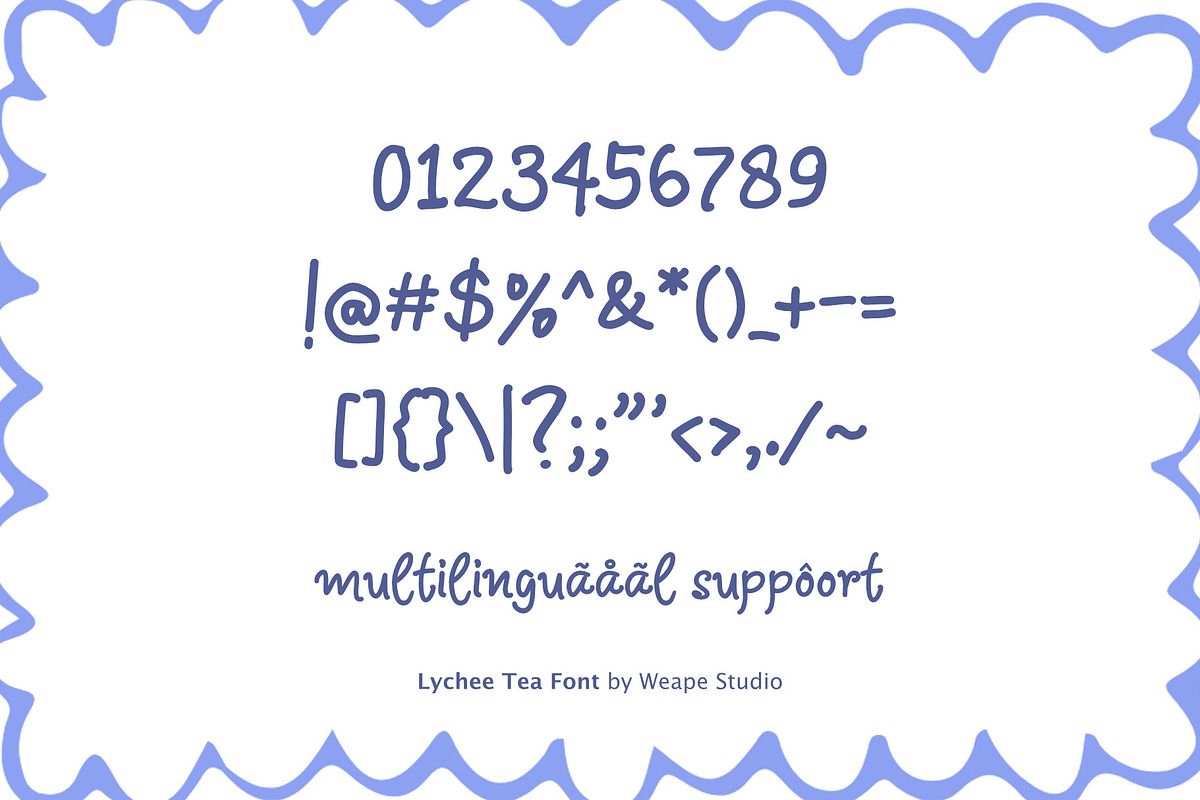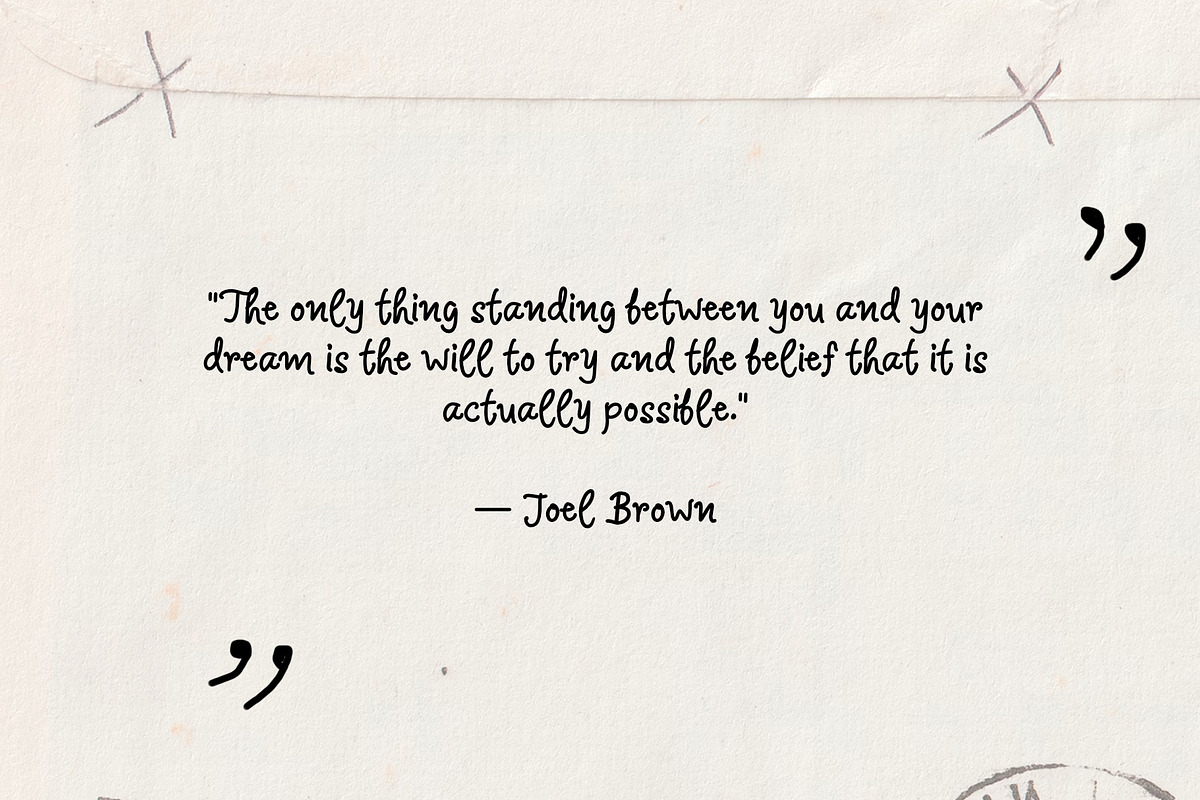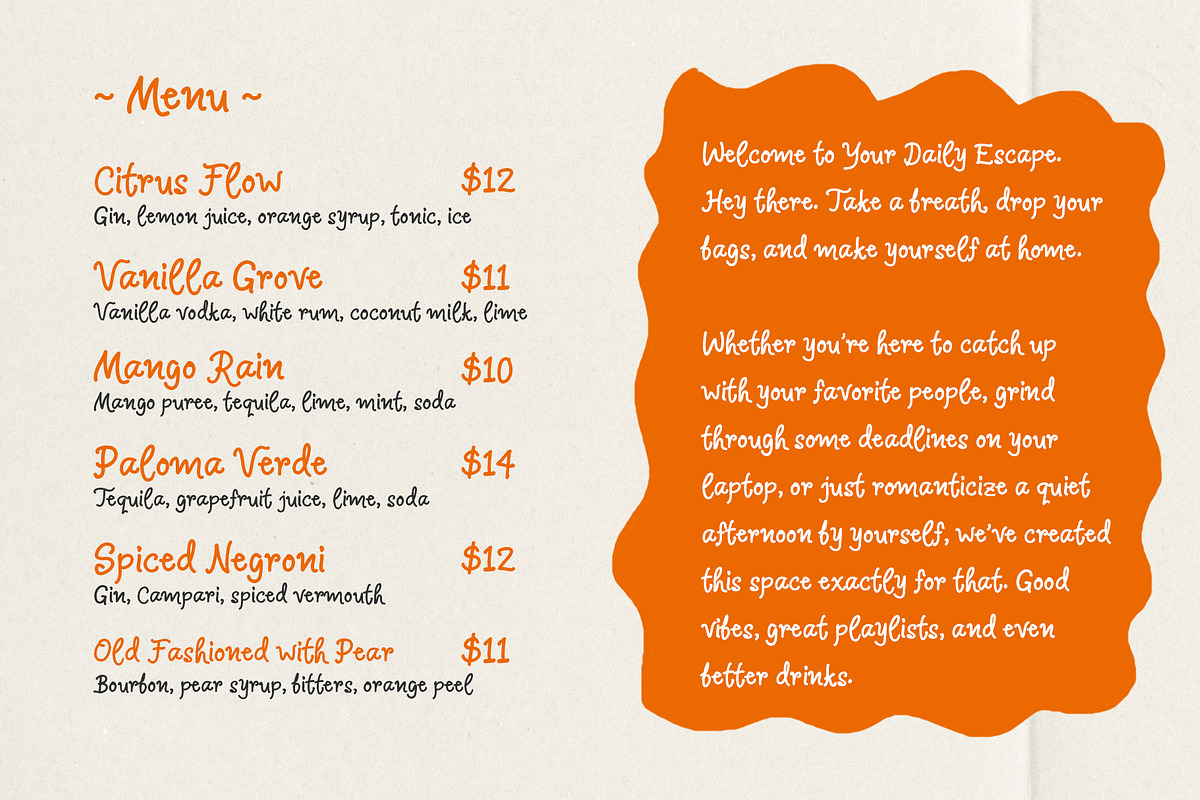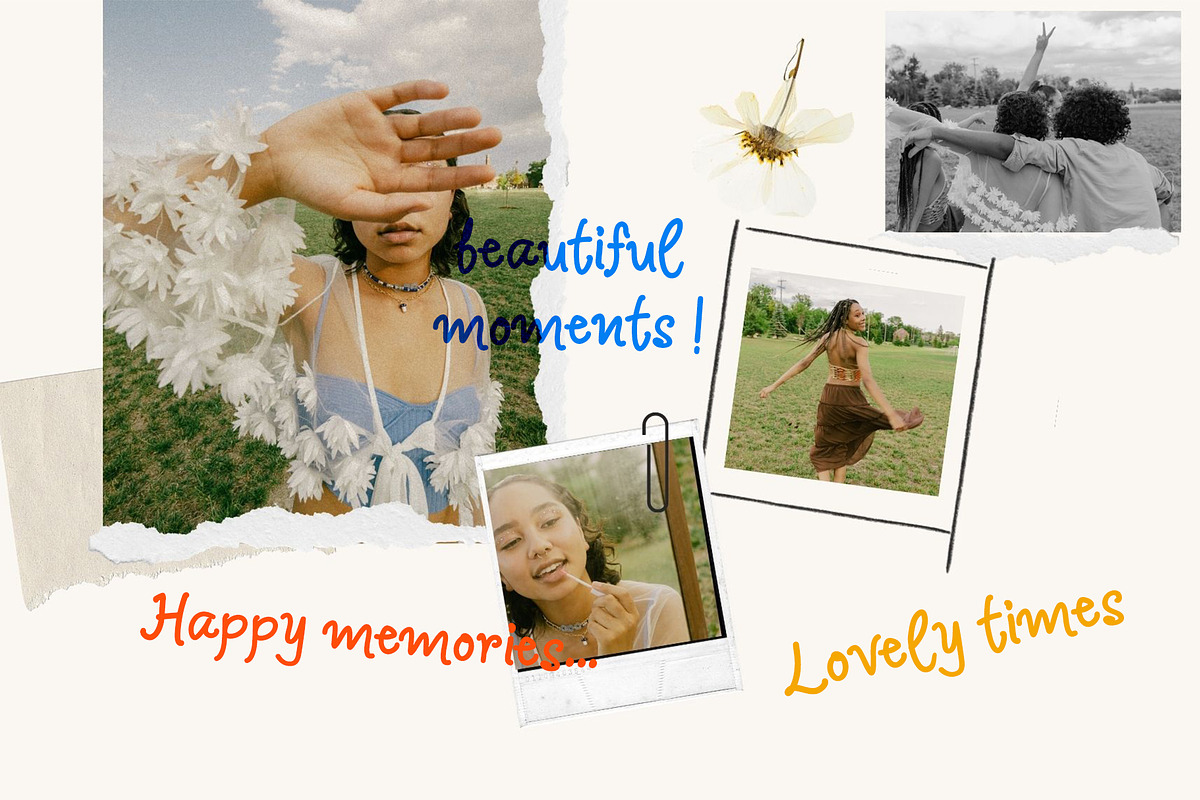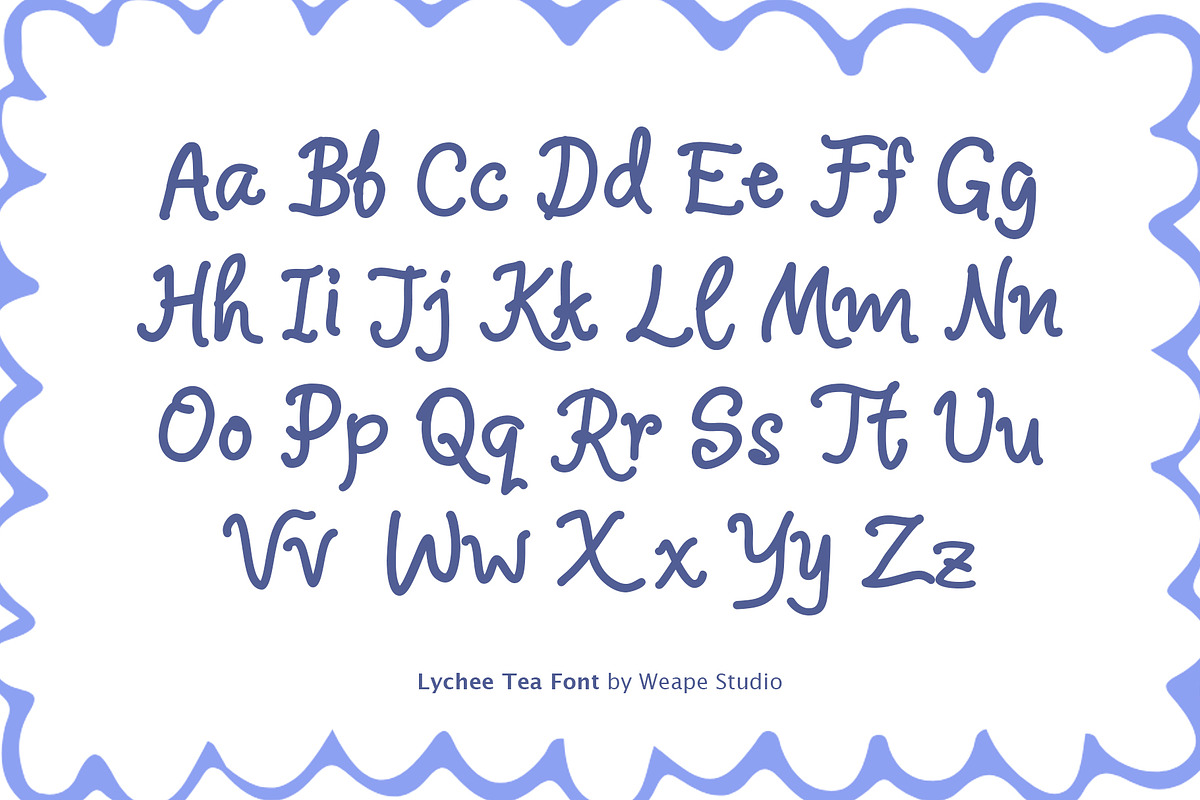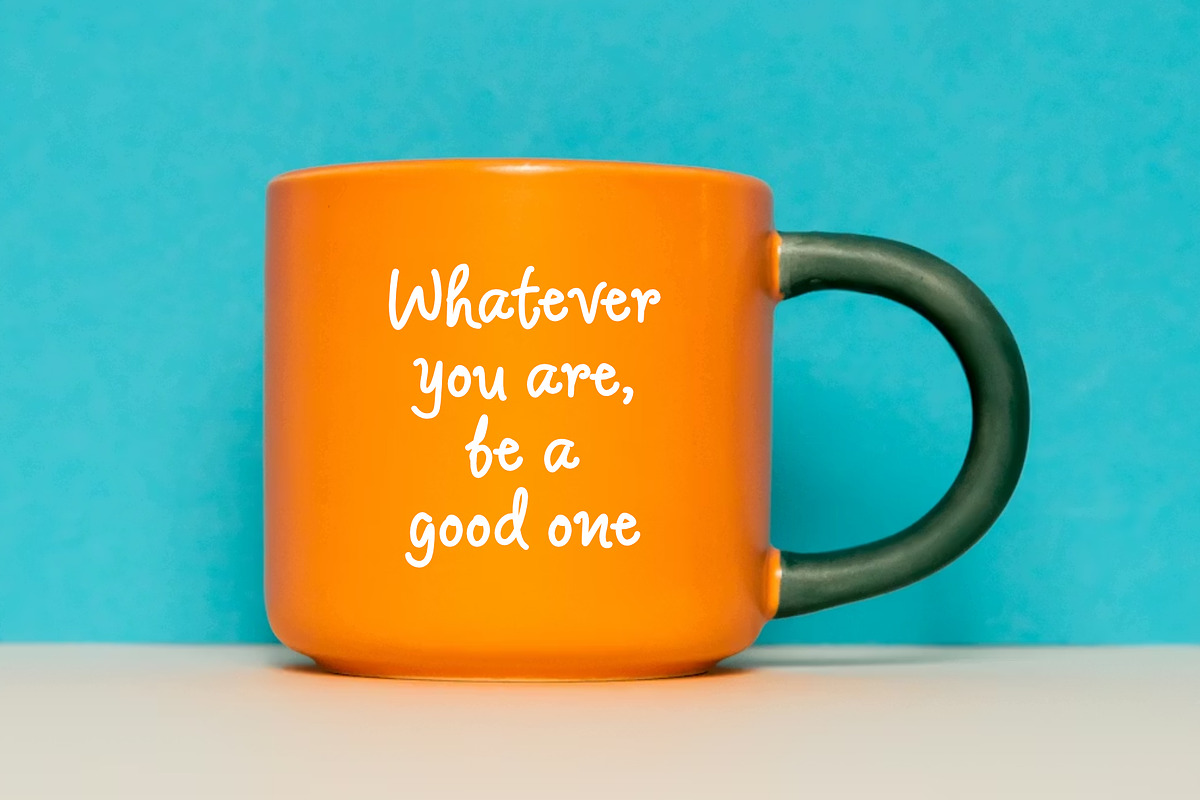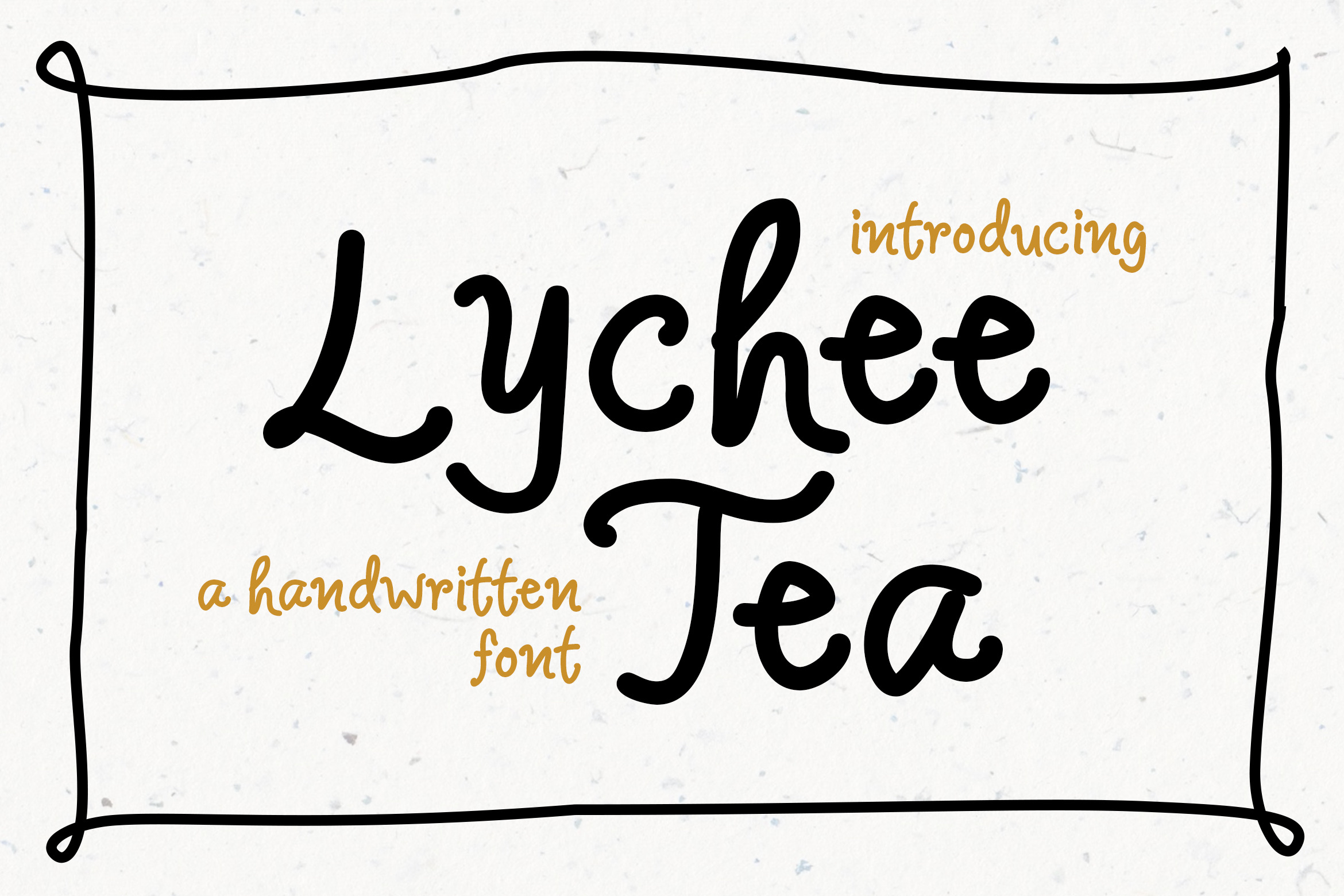
Lychee Tea - Handwritten Font
Pour yourself a cup of creativity with Lychee Tea.
Meet Lychee Tea, an expressive handwritten font designed to capture the raw, unfiltered beauty of natural handwriting. With its bouncy baseline, smooth curves, and honest strokes, this font feels like a personal note written by a good friend. It doesn't try to be perfectly geometric; instead, it embraces a free-flowing rhythm that adds an instant human touch to any digital canvas.
Whether you are designing heartfelt quote posters, vibrant social media graphics, or cozy lifestyle branding, Lychee Tea delivers a genuine and approachable aesthetic. It is highly legible while maintaining that delightful, slightly messy charm.
Perfectly suited for:
Social Media & Content: Instagram quotes, Pinterest graphics, and YouTube thumbnails.
Stationery & Crafting: Greeting cards, wedding invitations, bullet journals, and planner stickers.
Branding & Packaging: Logo designs, organic product labels, and apparel (t-shirts, tote bags).
Digital Products: GoodNotes templates, Canva templates, and digital scrapbooking.
Full set of standard alphabet and punctuation
Expressive uppercase and lowercase characters
Numbers and symbols
Add a refreshing, authentic vibe to your next design project with Lychee Tea!